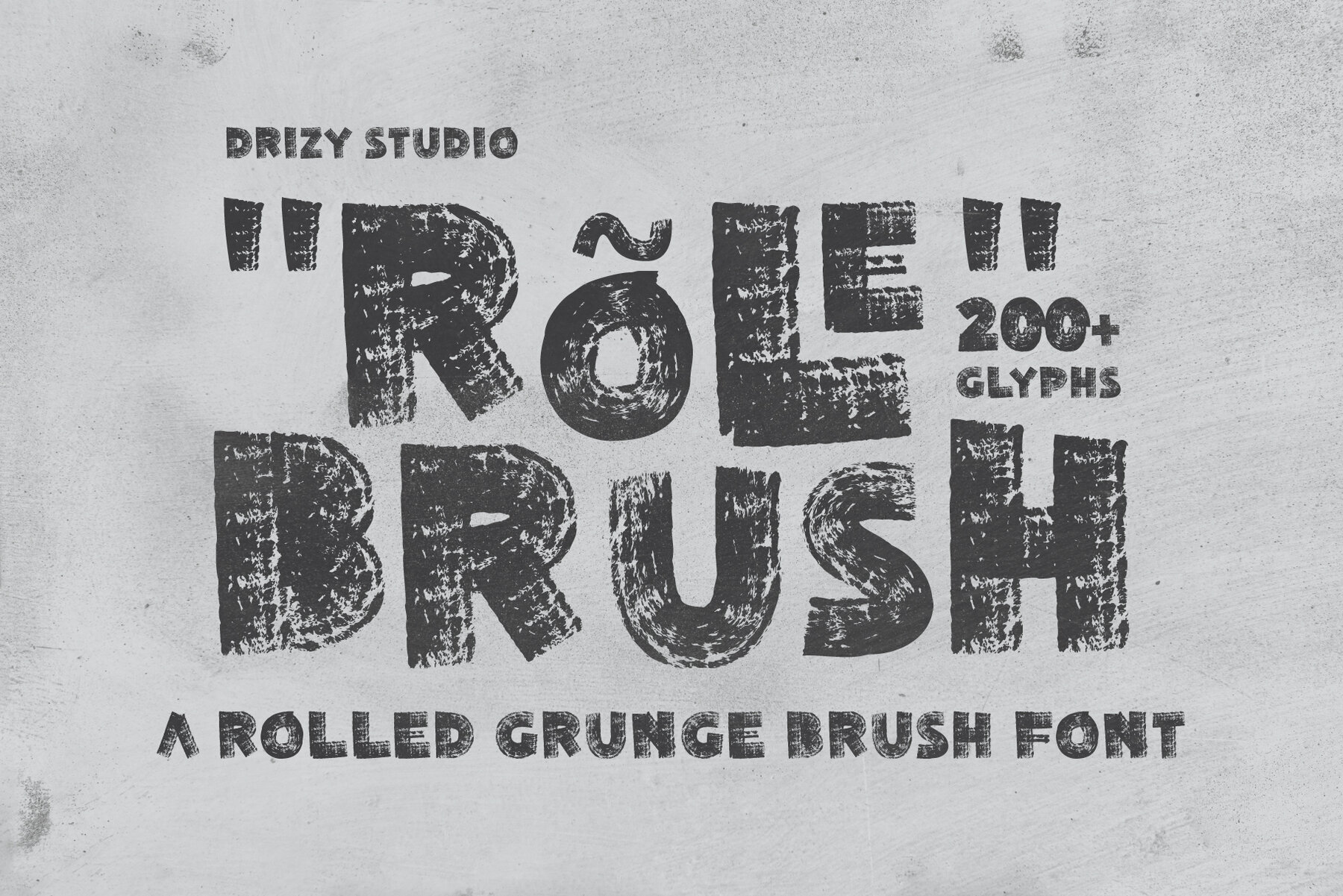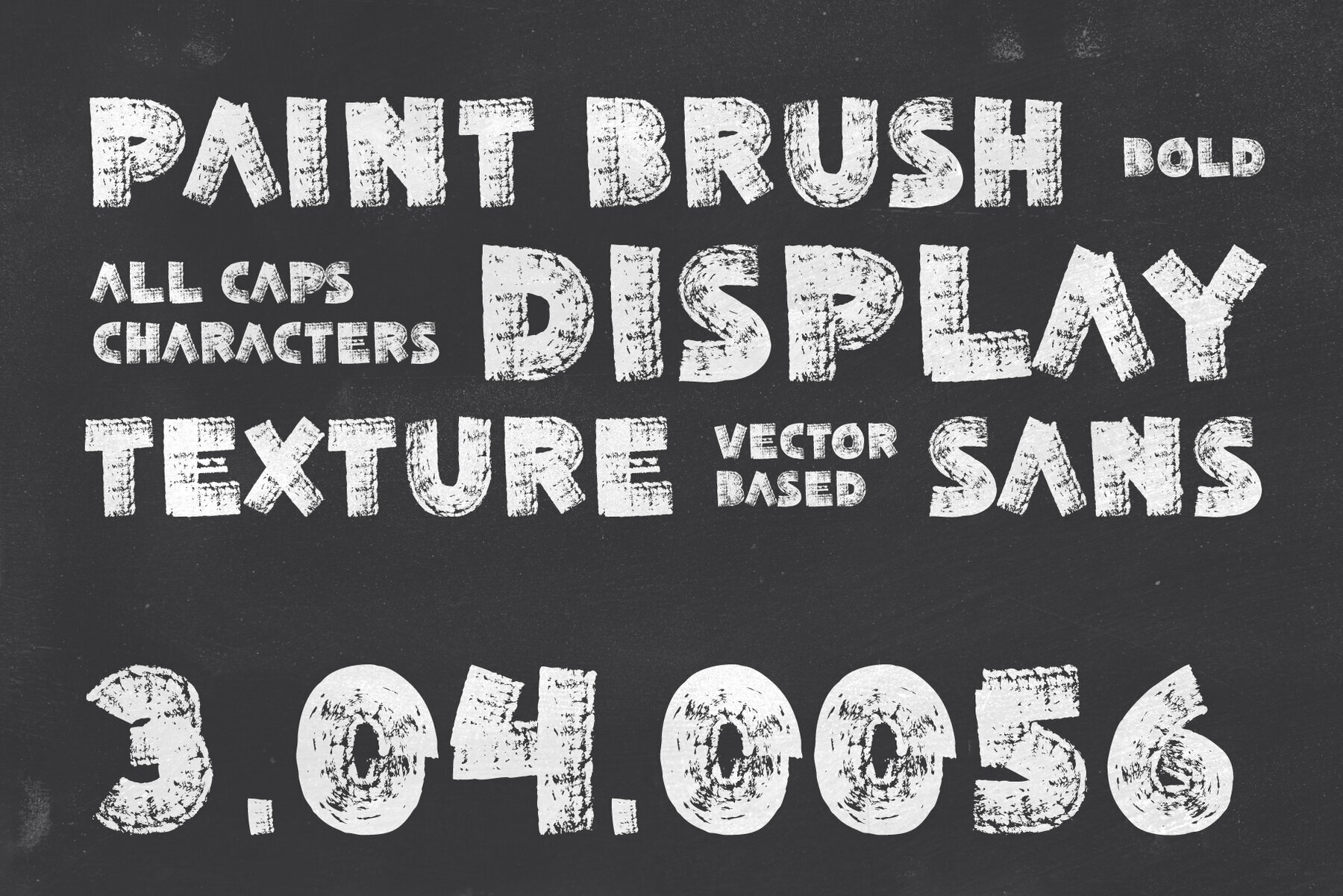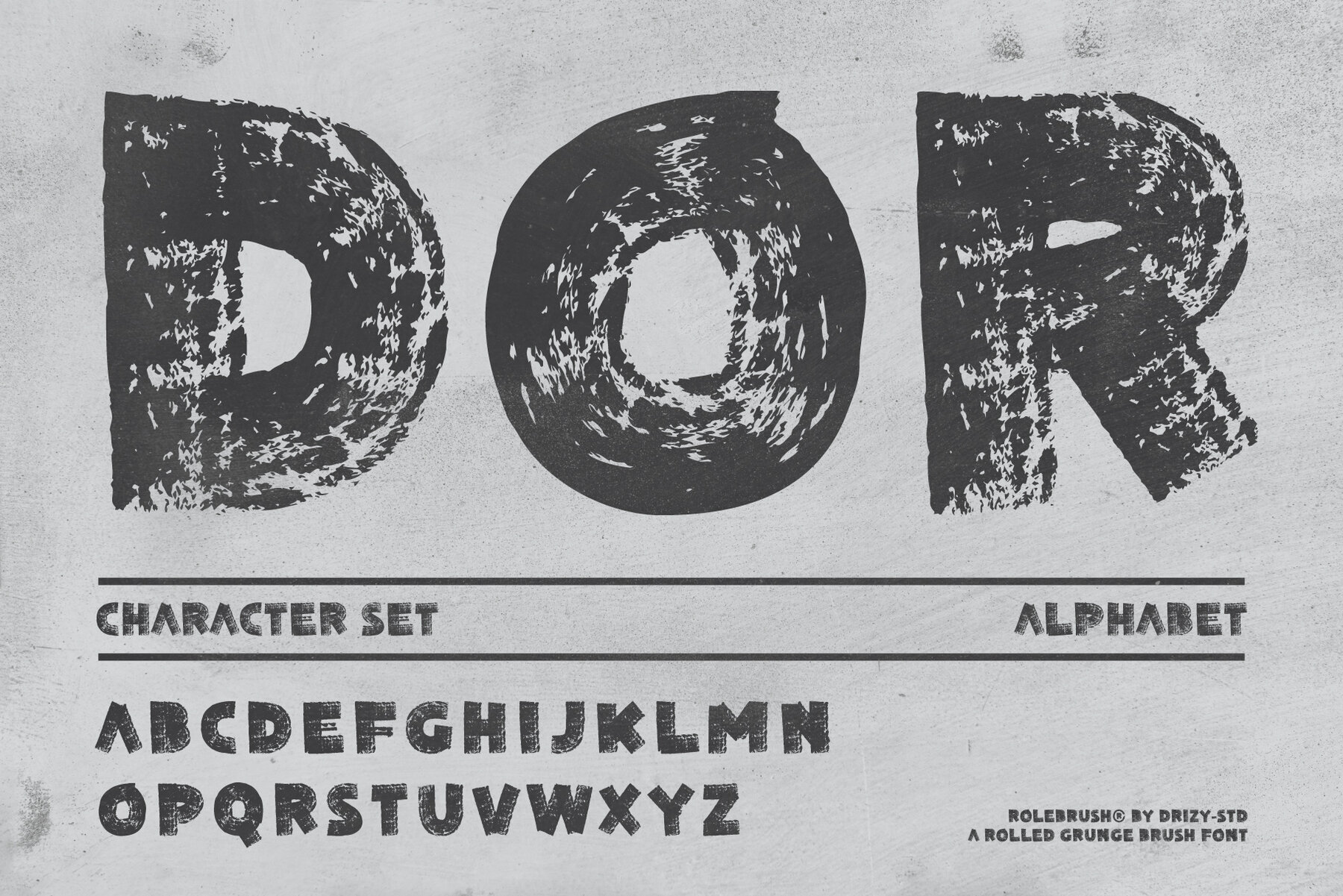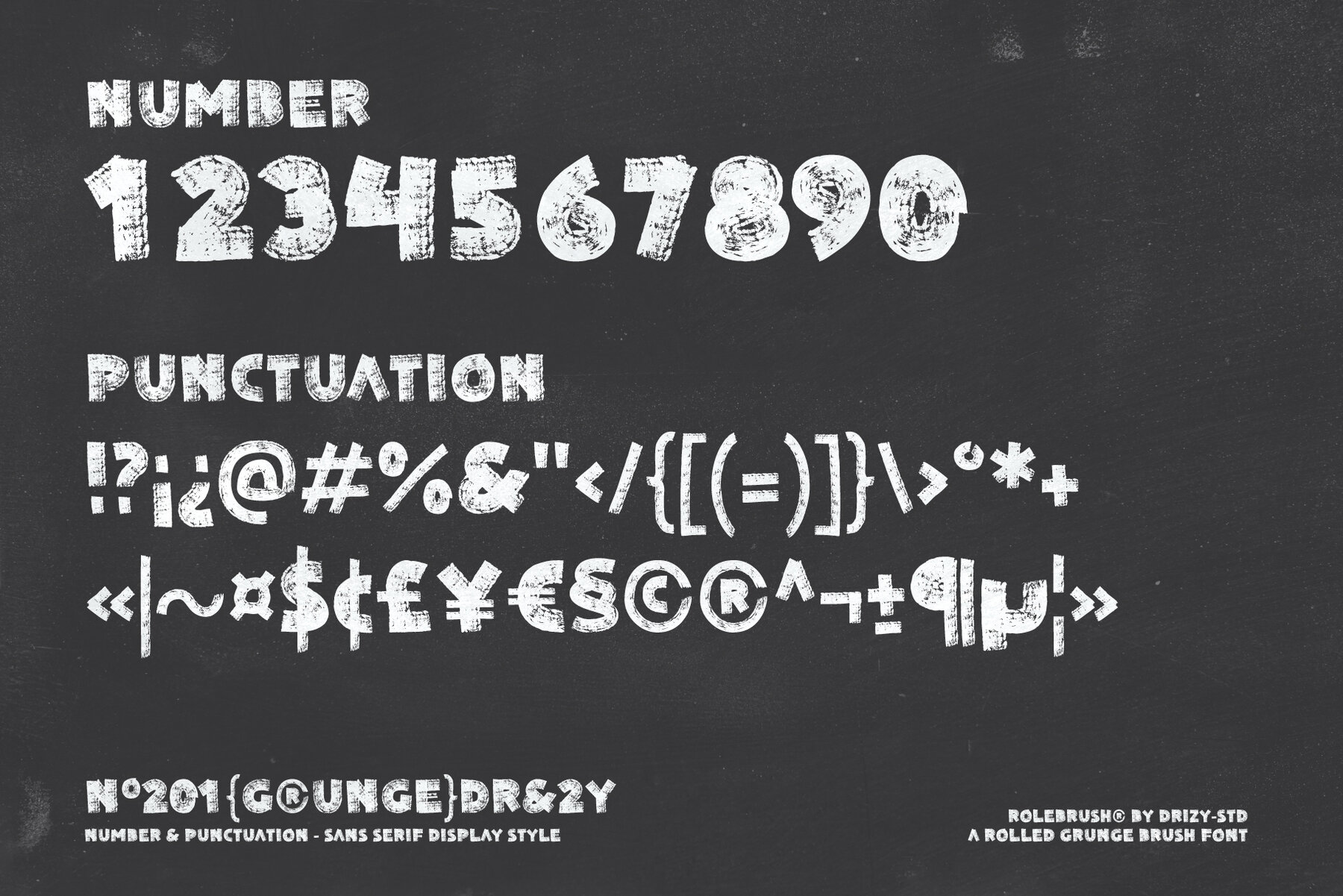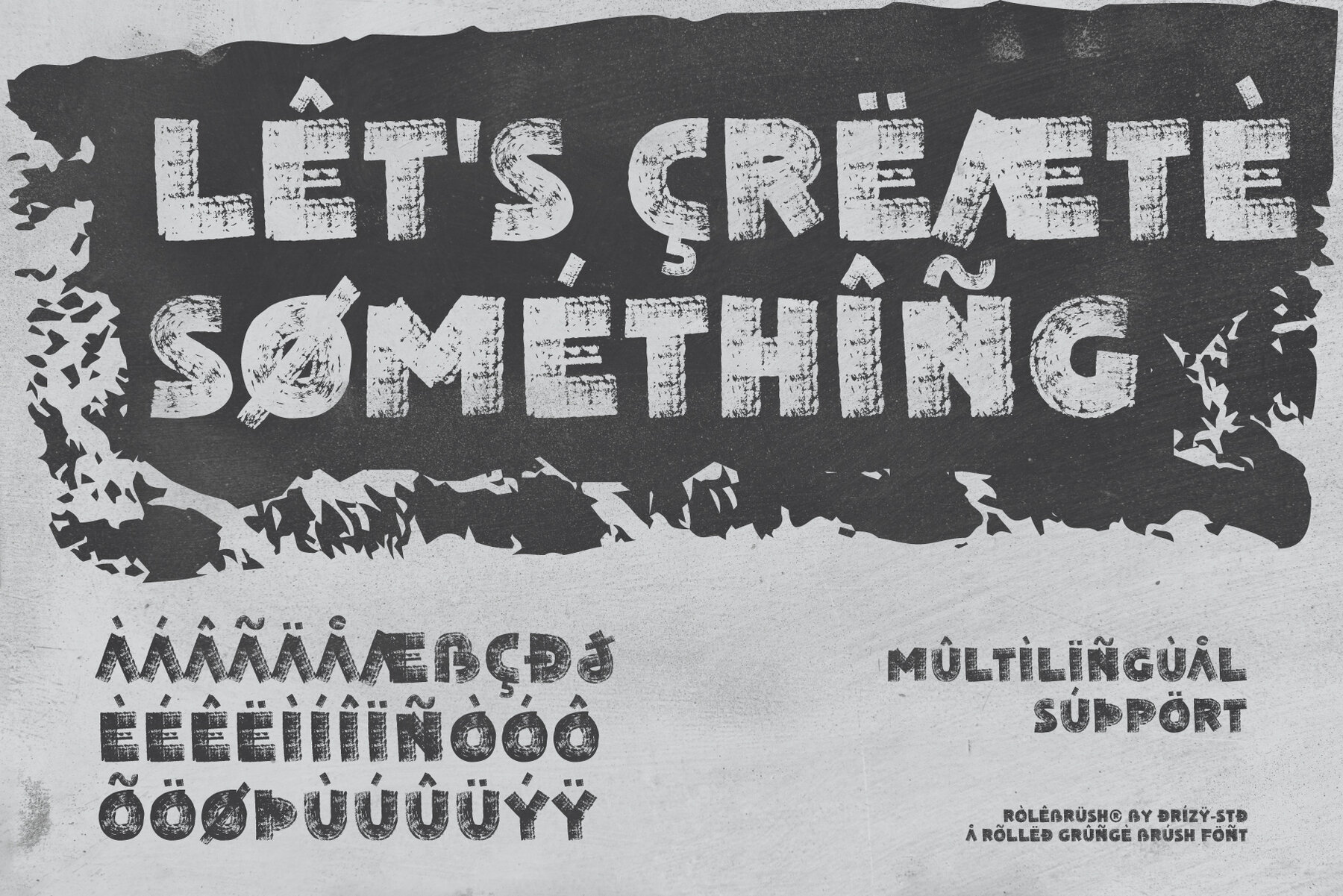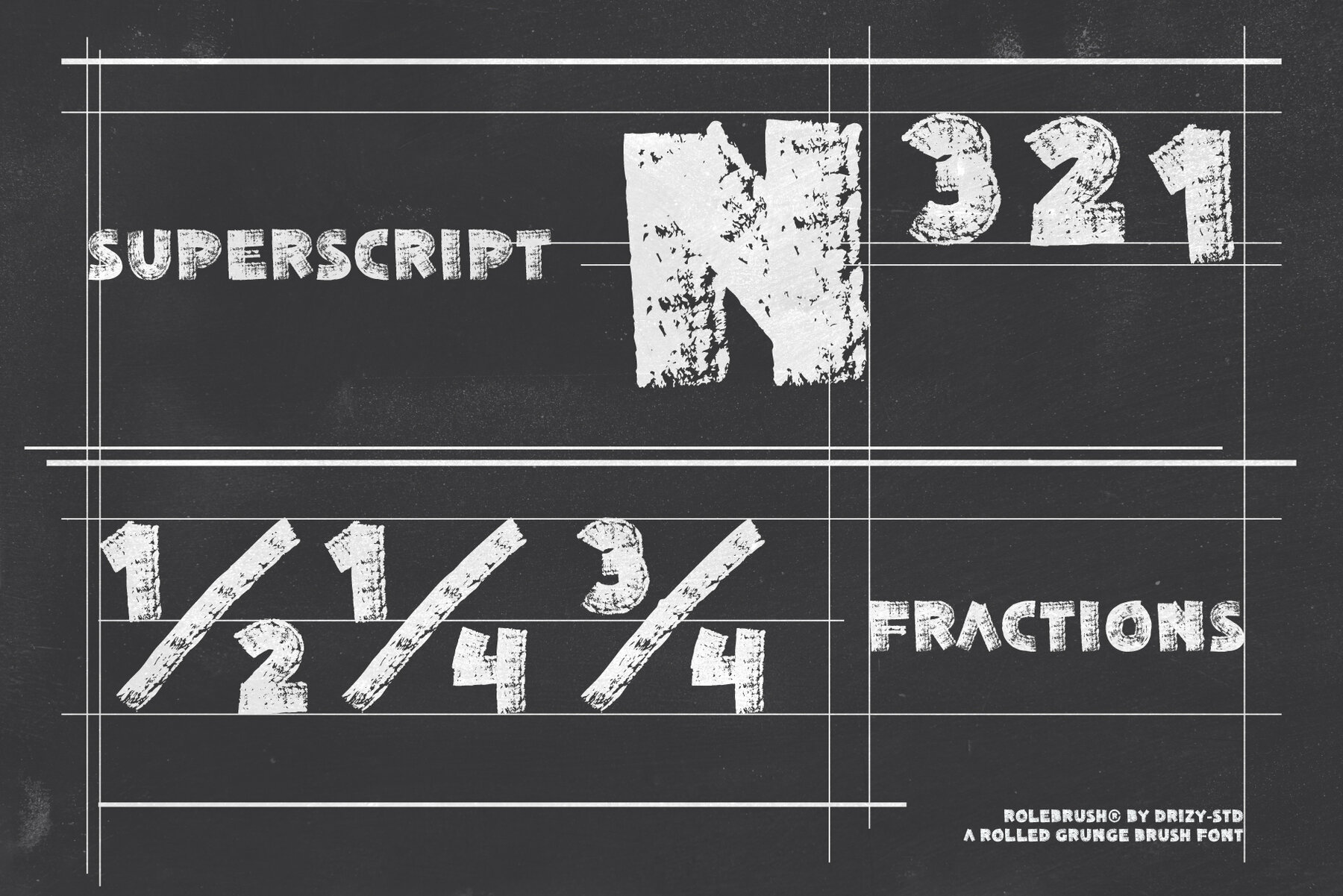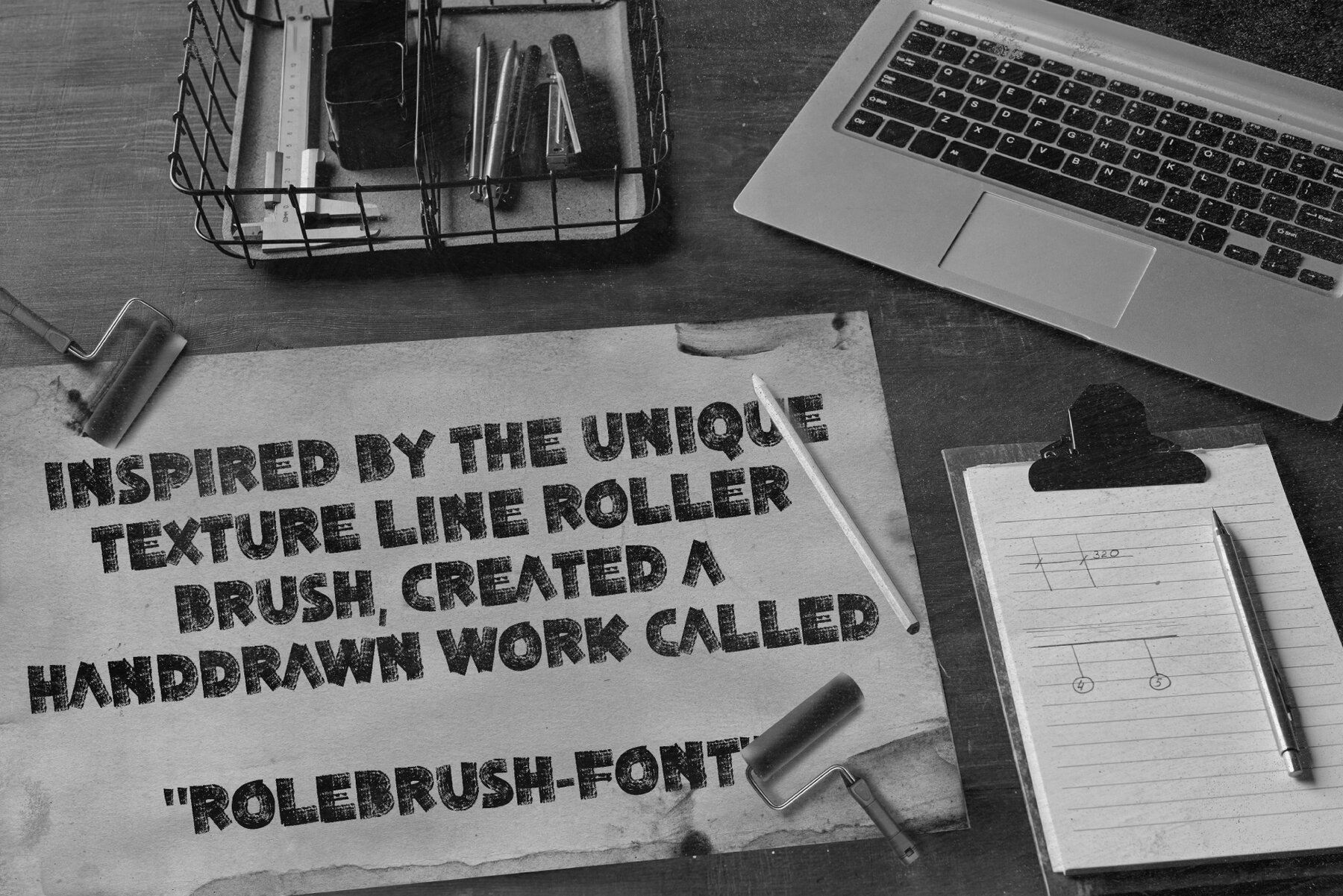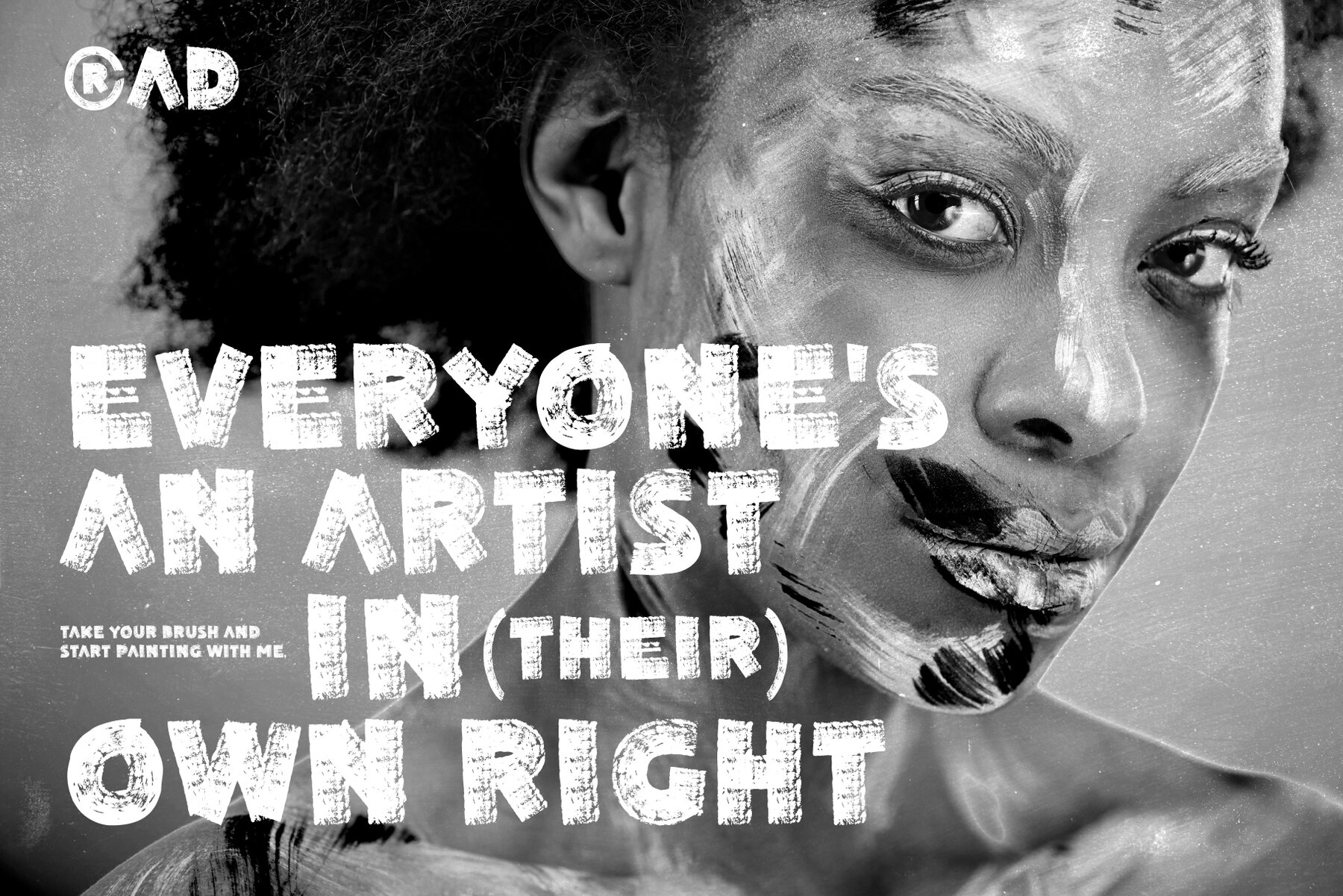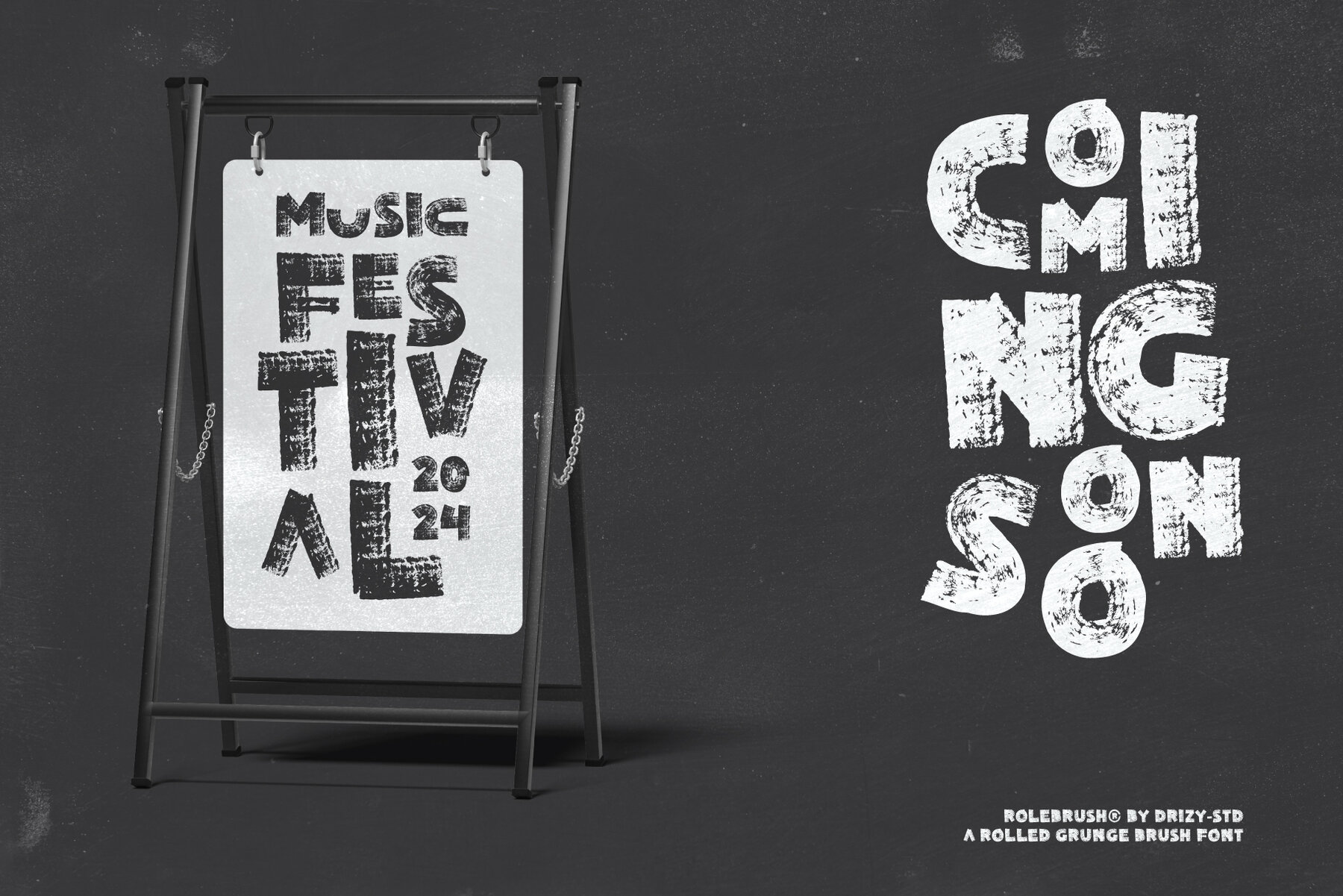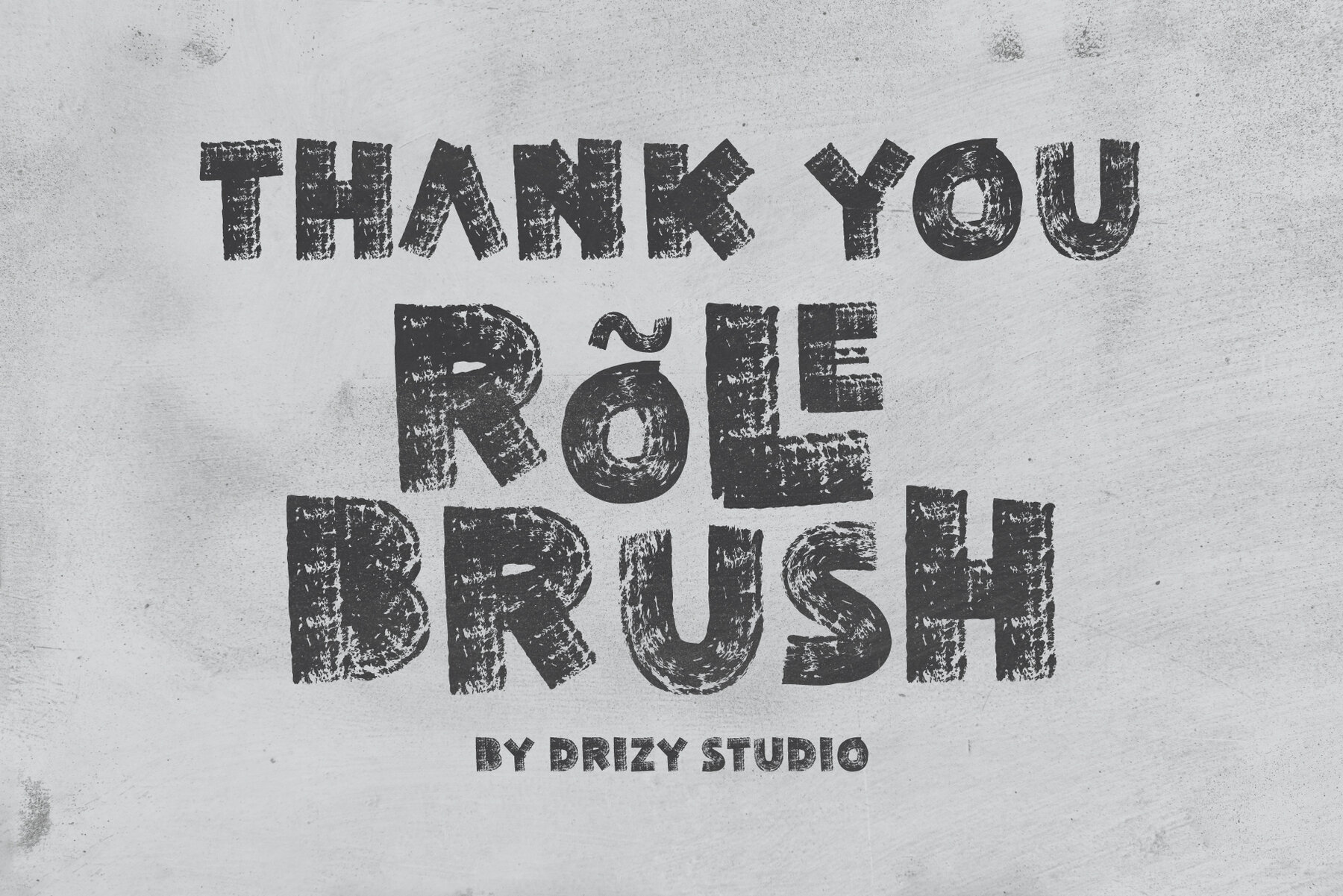
Rolebrush Font
Rolebrush Regular
Rolebrush Rolled Grunge Brush Font is a unique typeface that exudes a rugged, weathered charm with its grungy texture and rolled appearance. Inspired by weathered soil, this font conveys a strong sense of authenticity and age. The irregular strokes and distressed look give it a rustic quality, making it ideal for projects that require an earthy, natural feel. Rolebrush is particularly well-suited for posters, logos, and packaging, infusing these designs with a raw, organic beauty.
This font includes a full character set in all caps, along with punctuation and numbers to meet a variety of design needs. It also supports multilingual characters, making it versatile for a global audience. By incorporating Rolebrush into your design projects, you can effectively capture the essence of nature's raw beauty while adding distinct character and texture to your creative work.